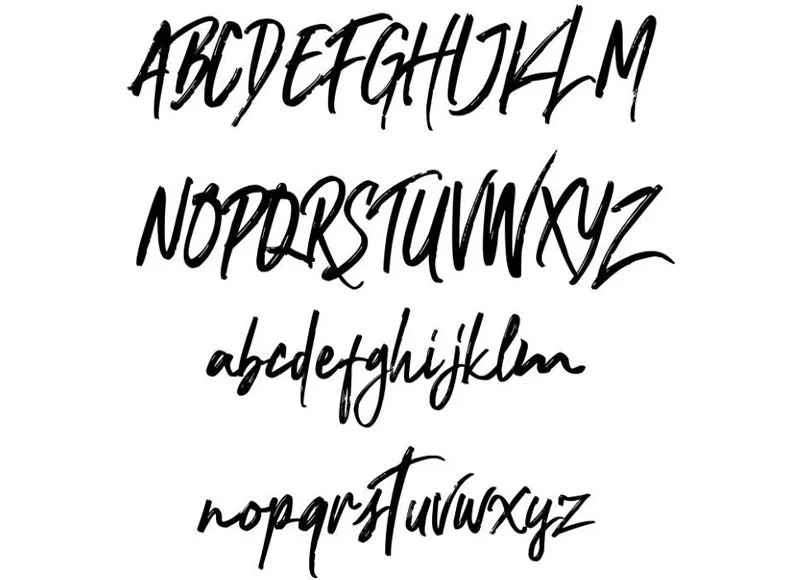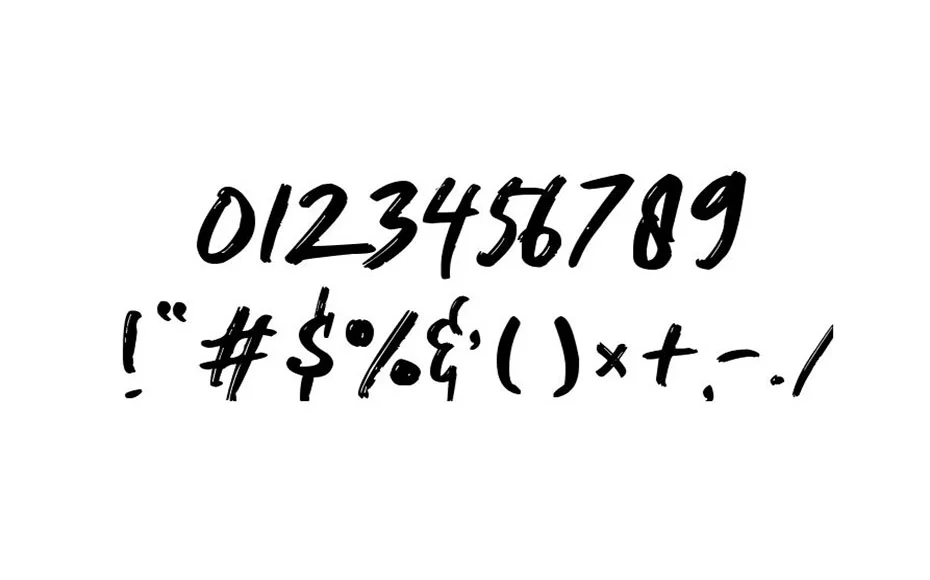
Nocturnal Font is a script brush typeface that effortlessly blends elegance and readability. It is perfect for brand logos, invitations, greeting cards, or any project.
This typeface was designed and shared by mlkwsn. Whether you’re creating a logo, designing a poster, or creating a website, this font works well in a variety of situations.
Nocturnal typeface can be found in a single style and this style contains 275 glyphs and 13 ligatures. It also supports 34 multi-languages.
The characters in this work are expertly designed, combining clear lines and fluid shapes to make them easy to read while still looking stylish.
The Nocturnal font is a flexible and visually appealing typeface that adds a hint of elegance and mystery to your designs.
With its hanging and attractive appearance, it can be used for specific layout techniques. For example, designing a unique logo, and brochure layout, brand logos, invitations, greeting cards, social media banners, flyers, headers, signatures, creating an e-book cover, printing items, etc.
This font has a stylish and contemporary appearance that adds an element of elegance to any work, making it perfect for both printed and digital use.